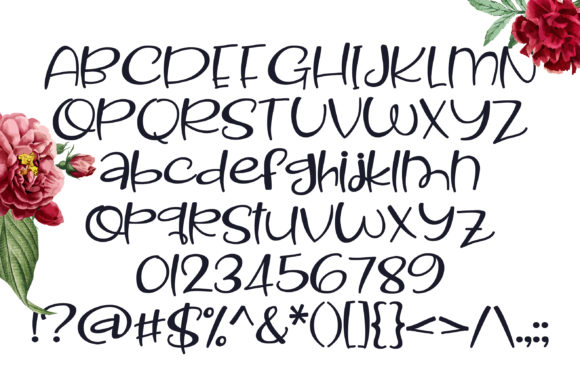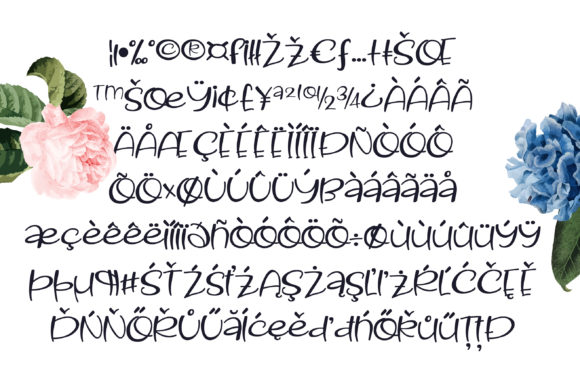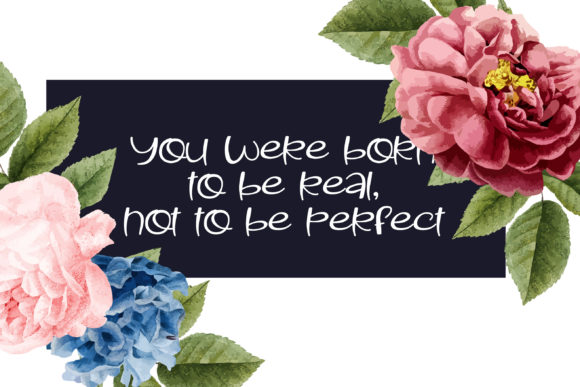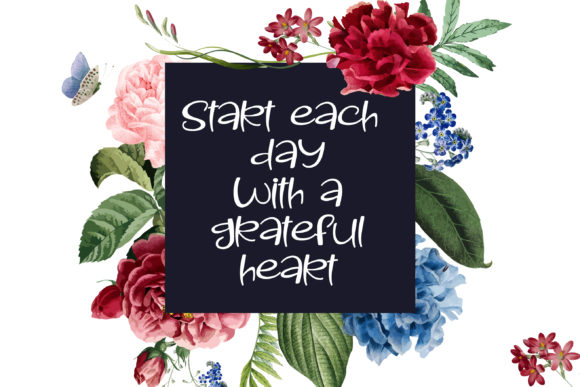
Meet the Charming Bud Nakey Font
Have you ever been stuck in a creative rut, staring blankly at your computer screen, searching for that perfect font to bring your design to life? It’s a feeling we’ve all been there. But what if I told you that the perfect font is just a click away? Say hello to the charming Bud Nakey Font, a casual handwritten script that’s sure to capture your heart.
This delightful font was designed with the intention of adding a touch of personality to your designs. With its raised lowercase letters and no descenders, the Bud Nakey Font is perfect for creating a unique and eye-catching visual identity. Whether you’re a graphic designer, a writer, or simply a creative soul, this font is a valuable addition to your toolkit.
Bud Nakey Font Key Features
- Font Family: A sans-serif font designed to convey a sense of ruggedness and uniqueness.
- Unique Characteristics: Features a distinctive, hand-drawn feel with subtle imperfections, giving it a personalized touch.
Bud Nakey Font Review
I recently had the chance to work with the Bud Nakey font, and I must say it’s an interesting character. ✨ The font’s unique, hand-drawn style is certainly eye-catching and can add a touch of personality to designs. The bold weight is particularly well-suited for headlines and titles, where it can effectively grab attention.
However, I did encounter some limitations while using the font. ⚠️ For one, the font’s irregularities can sometimes make it difficult to read, especially in smaller sizes. Additionally, the font’s consistency can vary depending on the device and screen resolution, which may lead to some inconsistencies in the design.
Here are some specific things to consider when using the Bud Nakey font:
- Use it sparingly to avoid overwhelming the design.
- Pair it with a clean, simple font for body text to improve readability.
- Be mindful of font sizes, as the font’s irregularities can become more noticeable at smaller sizes.
- Test the font on different devices and screen resolutions to ensure consistency.
Overall, the Bud Nakey font is a bold, attention-grabbing choice that can add a unique touch to designs. However, it’s essential to be aware of its limitations and use it judiciously to achieve the desired effect.
Tips for Getting the Most Out of the Bud Nakey Font
Use the Bud Nakey Font for distressed, vintage, or retro-themed designs. Experiment with different font sizes and colors to create a unique look.
The Bud Nakey Font is commonly used for:
- Retro-themed posters and flyers
- Vintage-style advertisements
- Distressed or worn-out text effects